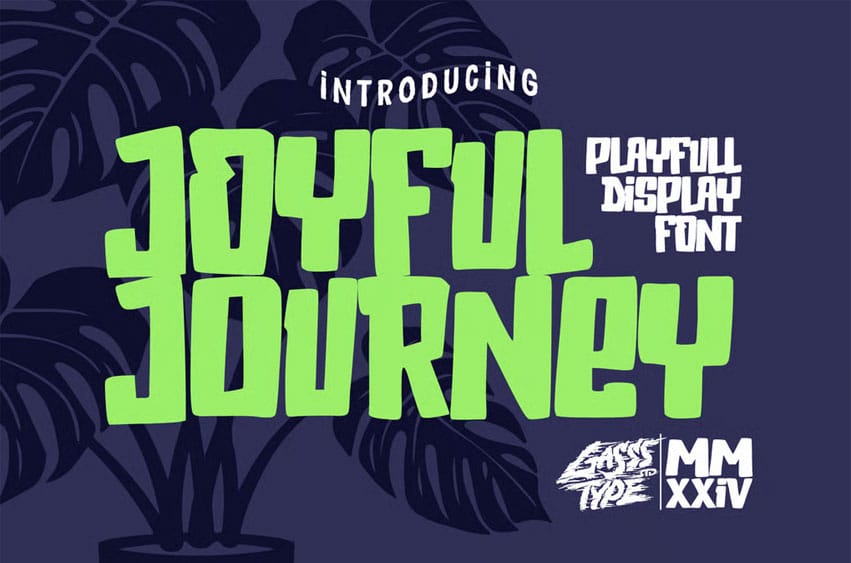
Joyful Journey Font Step into a world of fun and creativity with Joyful Journey—a playful display font that brings a burst of happiness to your designs. Every character dances with whimsy, making your words come alive with charm and cheer. Perfect for projects that need a touch of joy, Joyful Journey is your go-to font for spreading smiles and brightening up any message.